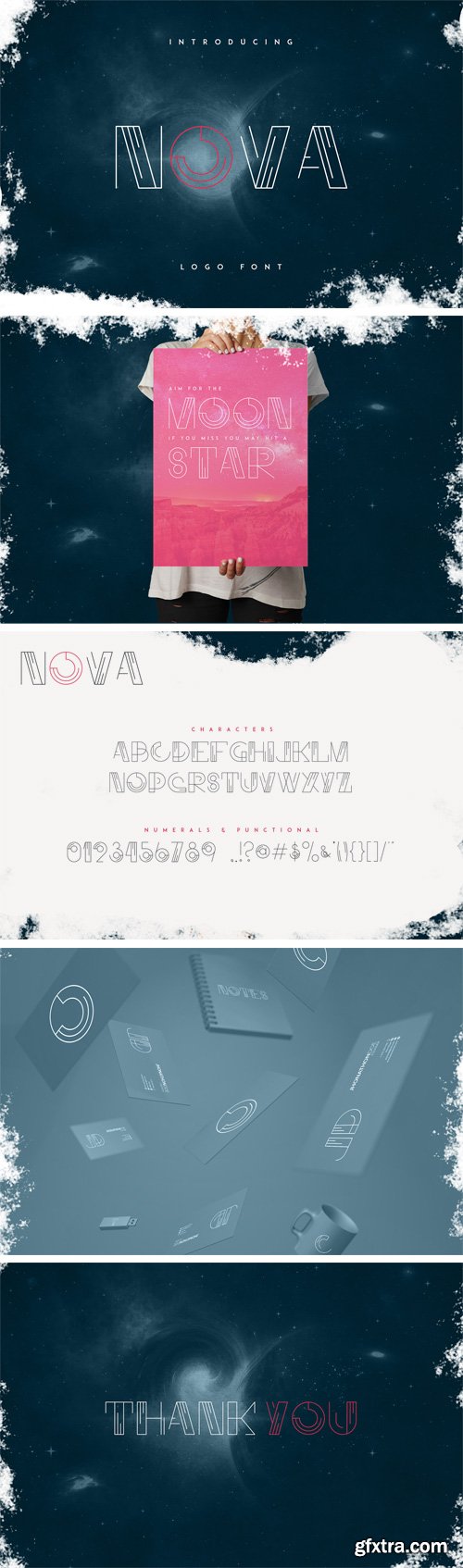
Nova Font
Nova is a logo display outlined font is with round corners. It comes with all caps letters, numbers and symbols. It’s a very versatile typeface that works great in large and small sizes, tight and wide spacing.